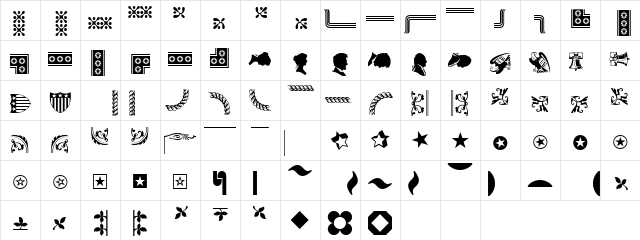
Borders & Ornaments 1 ATT Regular
Design Context for Borders & Ornaments 1 ATT
Borders & Ornaments 1 ATT is built around its visual character rather than neutral utility - its distinctive forms are designed to make an impression at display sizes.
Font Pairing: Pair with a clean neutral sans-serif for body copy to let Borders & Ornaments 1 ATT's character lead without overwhelming the composition.
Pro Tip: Use Borders & Ornaments 1 ATT exclusively at display sizes - it was designed to be seen, not read at length. Let a neutral companion handle body copy.